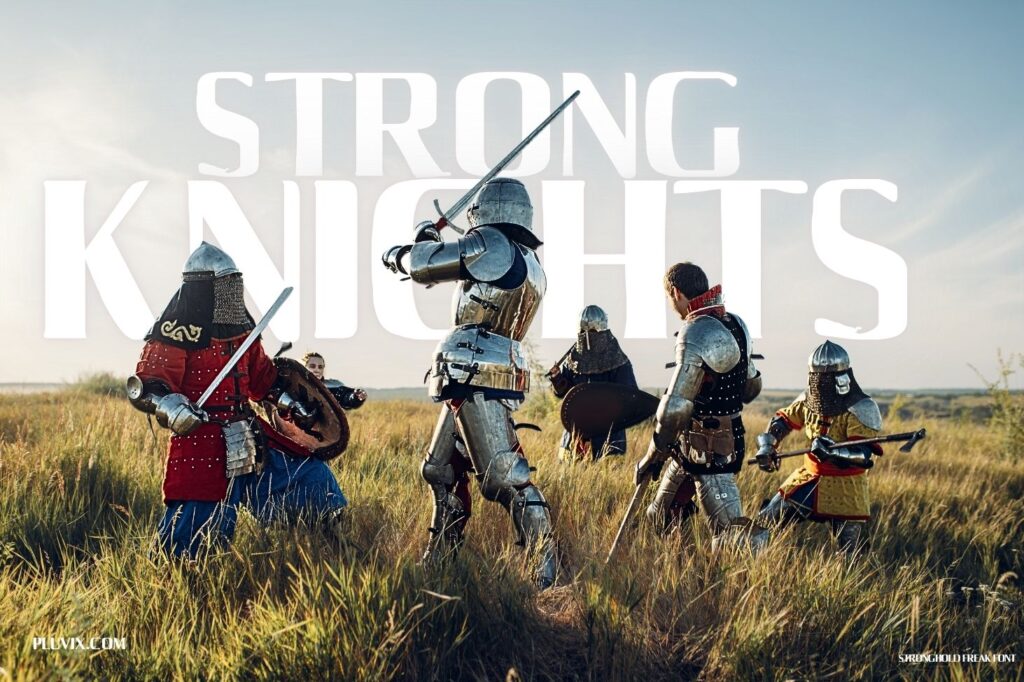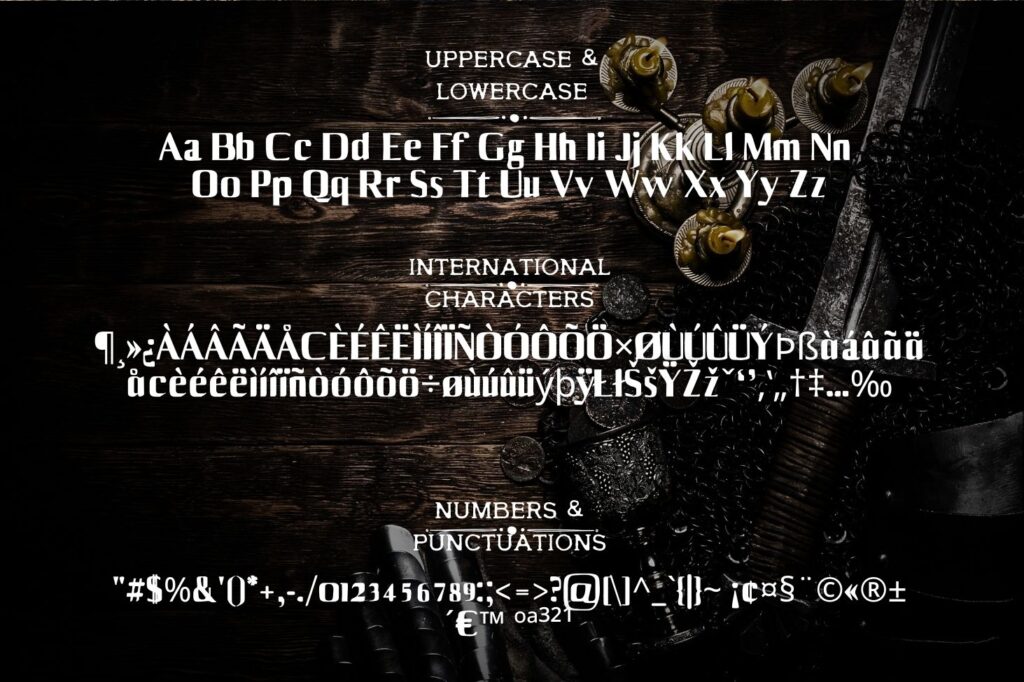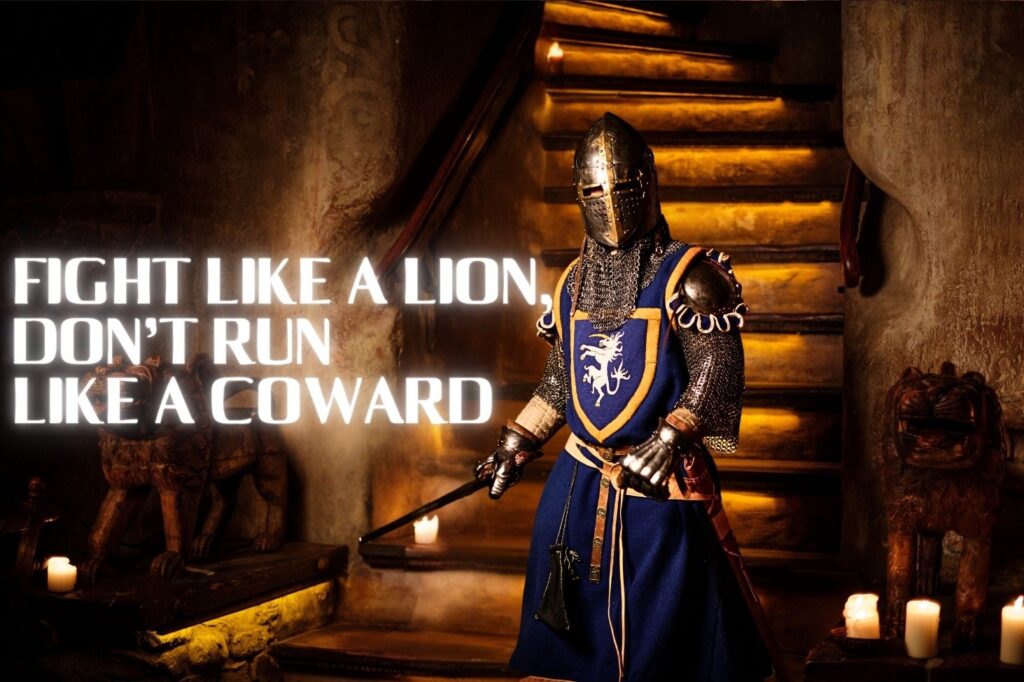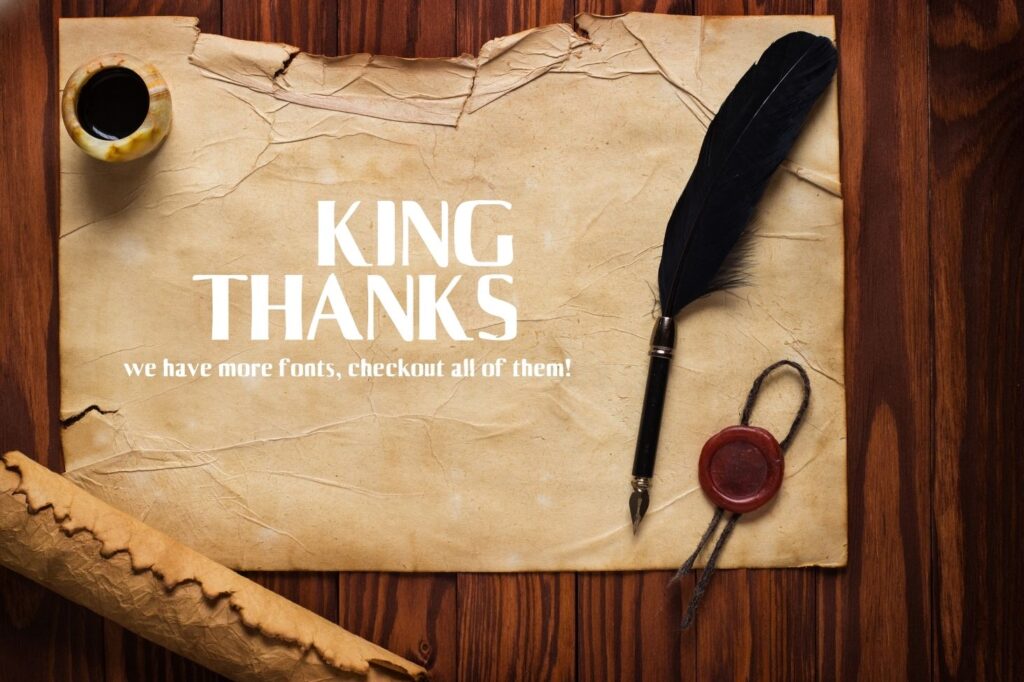
Stronghold Freak Font is a bold and commanding typeface designed to make an impact. With its strong, structured characters, it adds power and clarity to your designs. This font is perfect for a variety of projects, including logos, headlines, posters, and branding. Its clean yet bold appearance ensures your message is both striking and easy to read.
Equipped with uppercase and lowercase letters, numbers, punctuation, and international character support, Stronghold Freak Font is versatile and functional for personal and professional use. From digital graphics to print designs, its modern and robust style fits seamlessly into any creative project.
Where Can You Use Stronghold Freak Font?
- Interior Design: Create striking layouts and presentation headlines that demand attention.
- Fashion and Lifestyle: Add bold and clear headlines to editorials or promotional materials.
- Medieval or Fantasy Projects: Perfect for game titles, book covers, or themed designs with a powerful, historic feel.
- Posters and Banners: Grab attention with strong and prominent titles for events and advertisements.
- DIY Projects: Perfect for creative tasks like invitations, merchandise designs, or personal crafts.